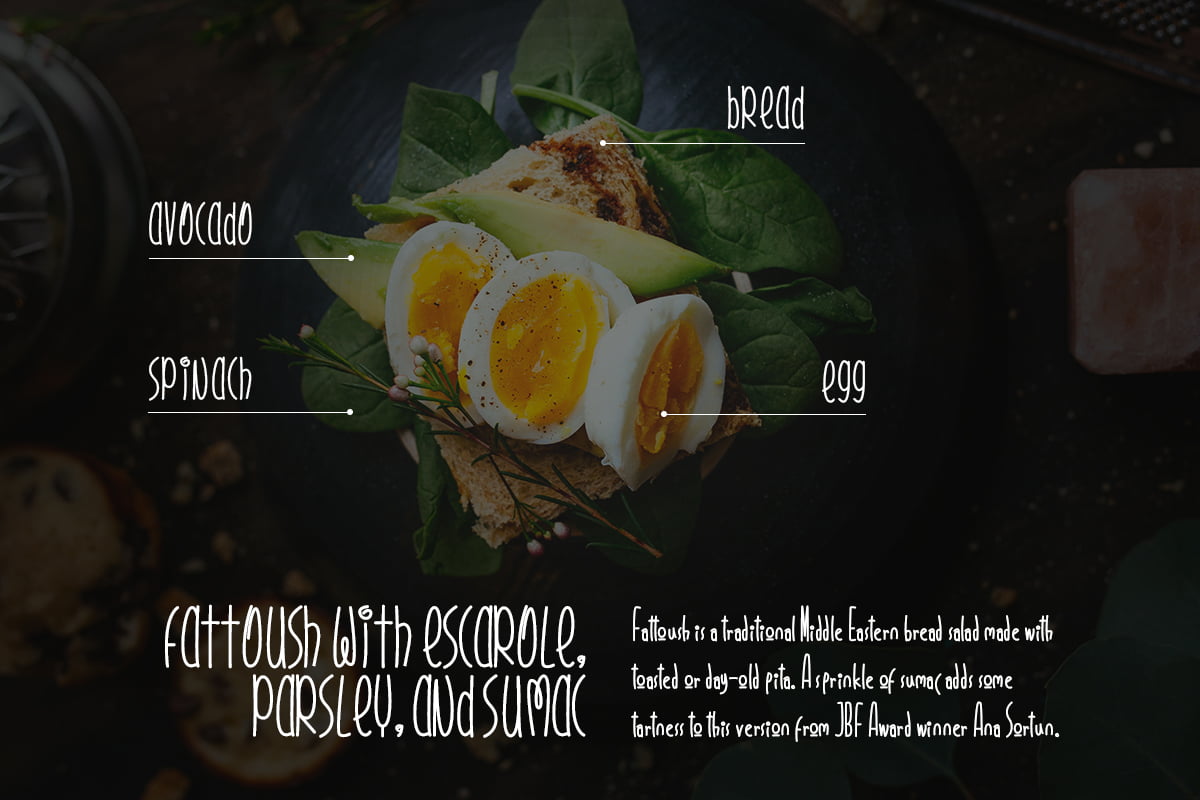
Choosing the Right Fonts for Your Infographics
Infographics are a great way to present data and information in a visually appealing way. However, choosing the right fonts for your infographics can be a daunting task. In this article, we will discuss some tips and tricks on how to choose the right fonts for your infographics.
Understand the Purpose of Your Infographic
Before choosing fonts for your infographic, it is essential to understand the purpose of your infographic. The purpose of your infographic will determine the type of font you should use. For example, if your infographic is meant to be informative, you should use a simple, easy-to-read font. On the other hand, if your infographic is meant to be fun and playful, you can use a more creative and unique font.
Consider Your Target Audience
Another essential factor to consider when choosing the right fonts for your infographics is your target audience. You should choose a font that will resonate with your target audience. For instance, if your target audience is kids, you can use a fun and playful font. However, if your target audience is professionals, you should use a more formal and simple font.
Choose a Font That Is Readable
The most important factor to consider when choosing fonts for your infographics is readability. You want your audience to be able to read and understand the information presented in your infographic easily. Therefore, you should choose a font that is easy to read, even from a distance.
Use a Maximum of Three Fonts
Using too many fonts in your infographic can make it look cluttered and confusing. Therefore, it is recommended to use a maximum of three fonts in your infographic. You can use one font for the title, another for the subtitles, and a third for the body text.
Avoid Using All Caps
Using all caps in your infographic can make it difficult to read. It is recommended to use sentence case or title case instead. Sentence case is when only the first word of the sentence is capitalized, and title case is when the first letter of every word is capitalized.
Conclusion
Choosing the right fonts for your infographics can make a significant difference in how effectively you communicate your message. By understanding the purpose of your infographic, considering your target audience, choosing a font that is readable, using a maximum of three fonts, and avoiding using all caps, you can create an infographic that is both attractive and effective.